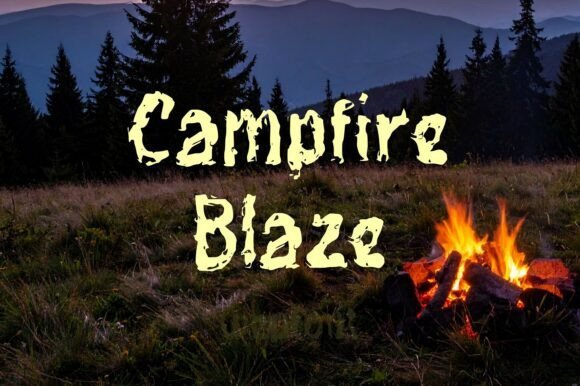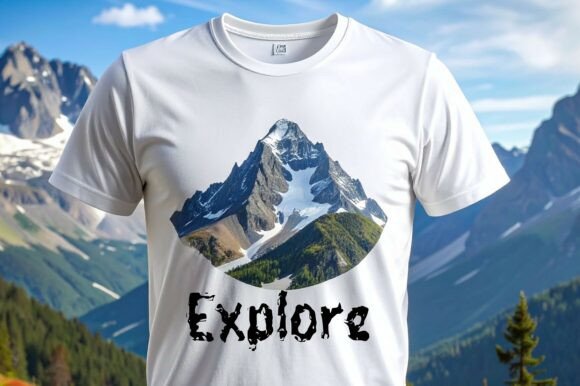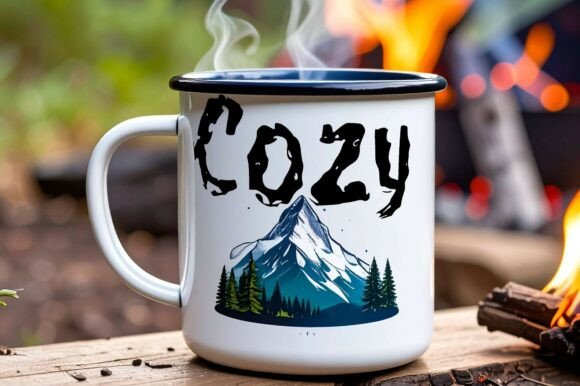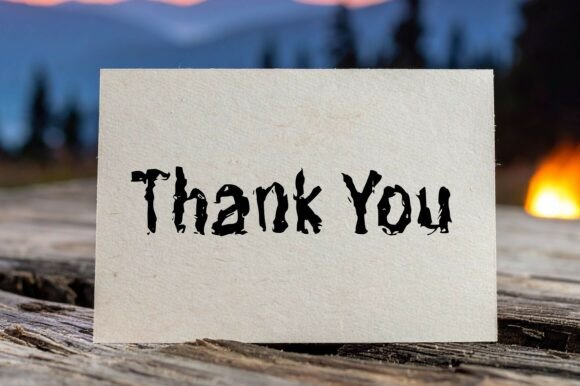
Spark Your Next Design Project with the Captivating Campfire Blaze Font
Have you ever sat around a crackling campfire, watching the stars twinkle above, and felt an overwhelming sense of adventure and freedom? It’s moments like these that inspire us to create, and for designers, the Campfire Blaze Font is the perfect spark to ignite your next project.
This striking display font embodies the raw essence of boundless adventures and cozy gatherings, making it a valuable asset for any designer looking to add a touch of rustic bravado to their work. With its uniquely patent style, reminiscent of the craftsman’s hand or the organic influences of Mother Nature, the Campfire Blaze Font is perfect for outdoor-themed projects, evoking powerful imagery of the natural world.
Whether you’re working on an outdoor apparel brand, adventure tourism advertisement, or organic craft beer label, the Campfire Blaze Font is sure to captivate your audience and leave a lasting impression.
Campfire Blaze Font Key Features
- Unique Characteristics: The Campfire Blaze Font features a distressed, vintage aesthetic with bold lines, rough textures, and subtle imperfections, giving it a unique and eye-catching appearance.
- Font Style: The font is available in a single style, but it can be easily customized using font editors or software to create various effects and moods.
- Legibility: Despite its distressed appearance, the Campfire Blaze Font remains highly legible, making it suitable for a wide range of applications, from display headings to body text.
Campfire Blaze Font Review
Overall, I’m quite fond of the Campfire Blaze Font! ✨ It has a charming, rustic feel that’s perfect for outdoor-themed designs or projects that need a warm, cozy touch.
- The font’s unique, handwritten feel adds a lot of character to designs. ✨
- It’s highly customizable, with plenty of options for adjusting the weight, size, and spacing. ✨
- The font is highly legible, even at smaller sizes, making it a great choice for body text or captions. ✨
- The font may not be suitable for formal or professional designs, as it has a more casual, informal feel. ⚠️
- Some characters may be slightly uneven or imperfect, which could be a concern for designers who value precision. ⚠️
- The font’s wide range of customization options can be overwhelming for less experienced designers. ⚠️
Overall, I’d give the Campfire Blaze Font 4 out of 5 stars. While it has some limitations, its unique charm and high level of customization make it a great choice for designers who want to add a touch of warmth and personality to their projects.
Use the Campfire Blaze font for outdoor-themed designs, such as camping, hiking, or nature-inspired graphics.
Pair the font with earthy colors and natural textures to create a cohesive look.
Experiment with different font sizes and colors to create visual interest and emphasis.
Outdoor branding and marketing materials
Camping and hiking-related designs
Nature-inspired graphics and illustrations